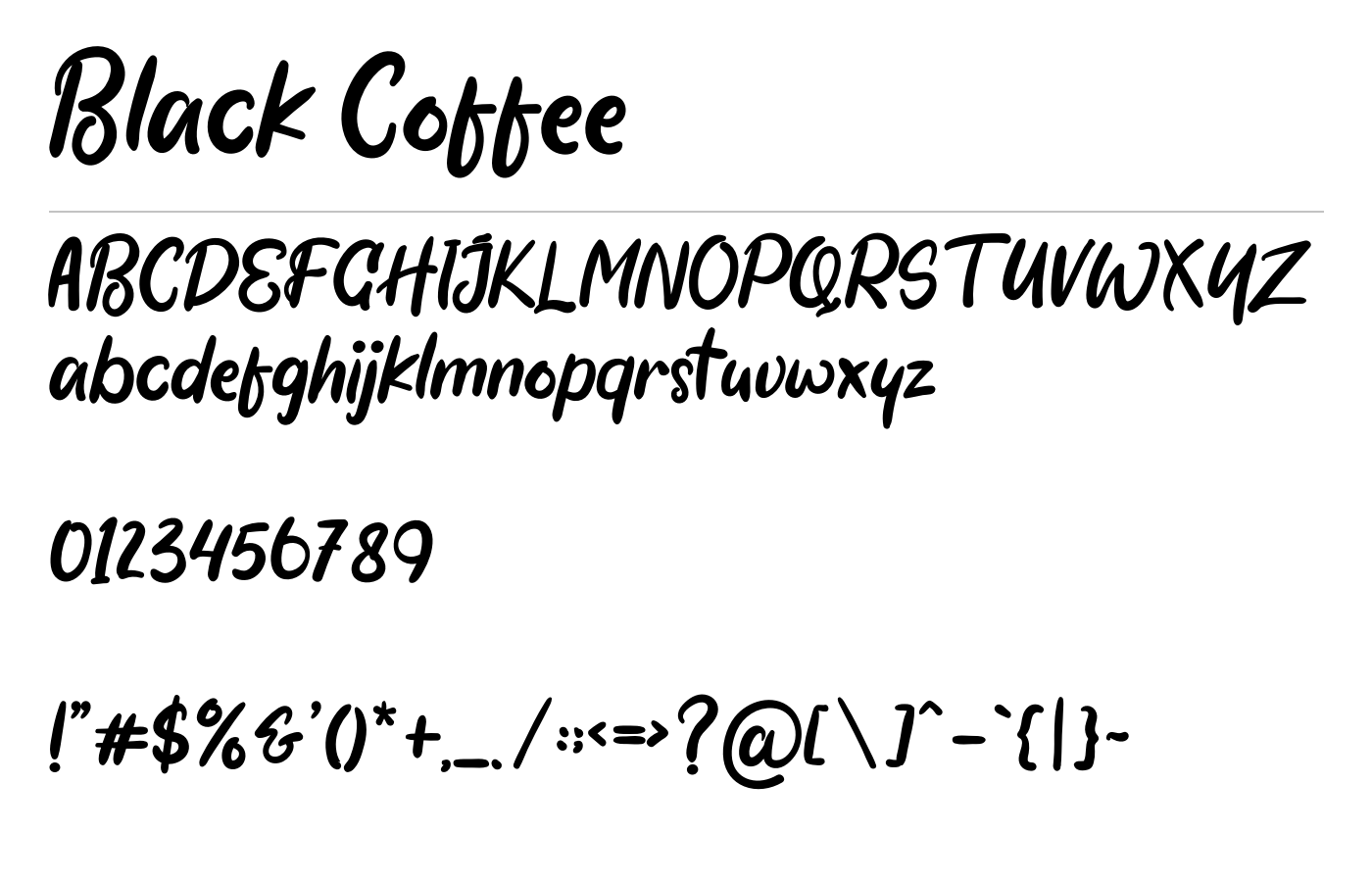
Black Coffee is a lively, handwritten script font with a bold yet friendly character. Its smooth, rounded strokes and variable letter heights give it a casual and approachable feel, making it perfect for creative branding, informal invitations, and eye-catching headlines. This font works well where a personal, energetic touch is needed to connect with audiences in a warm and inviting way.
Black Coffee Font